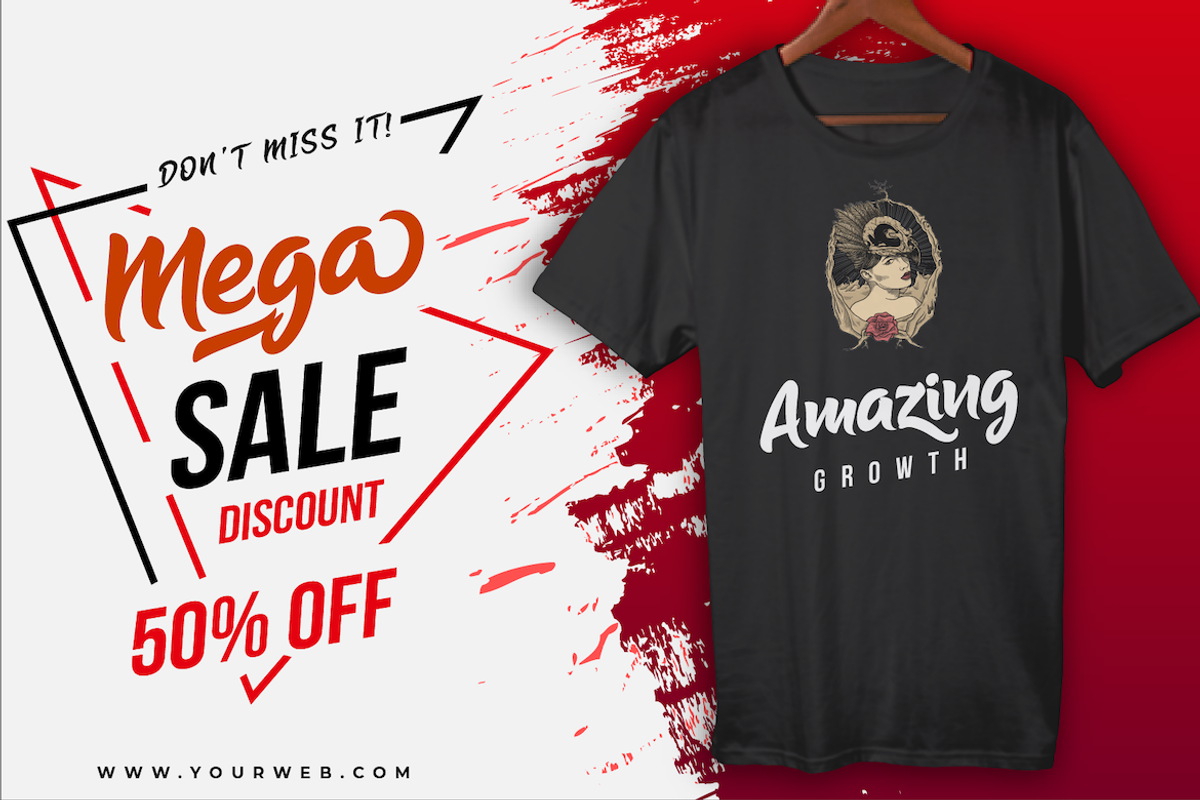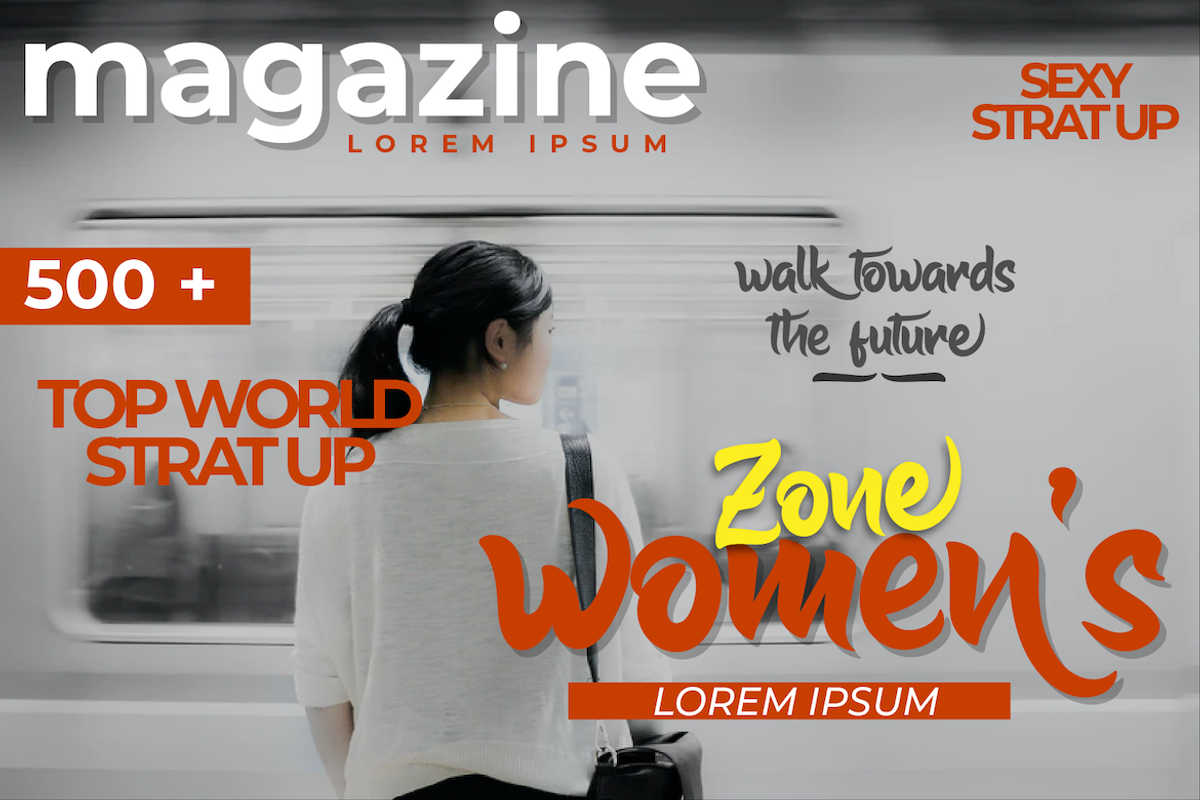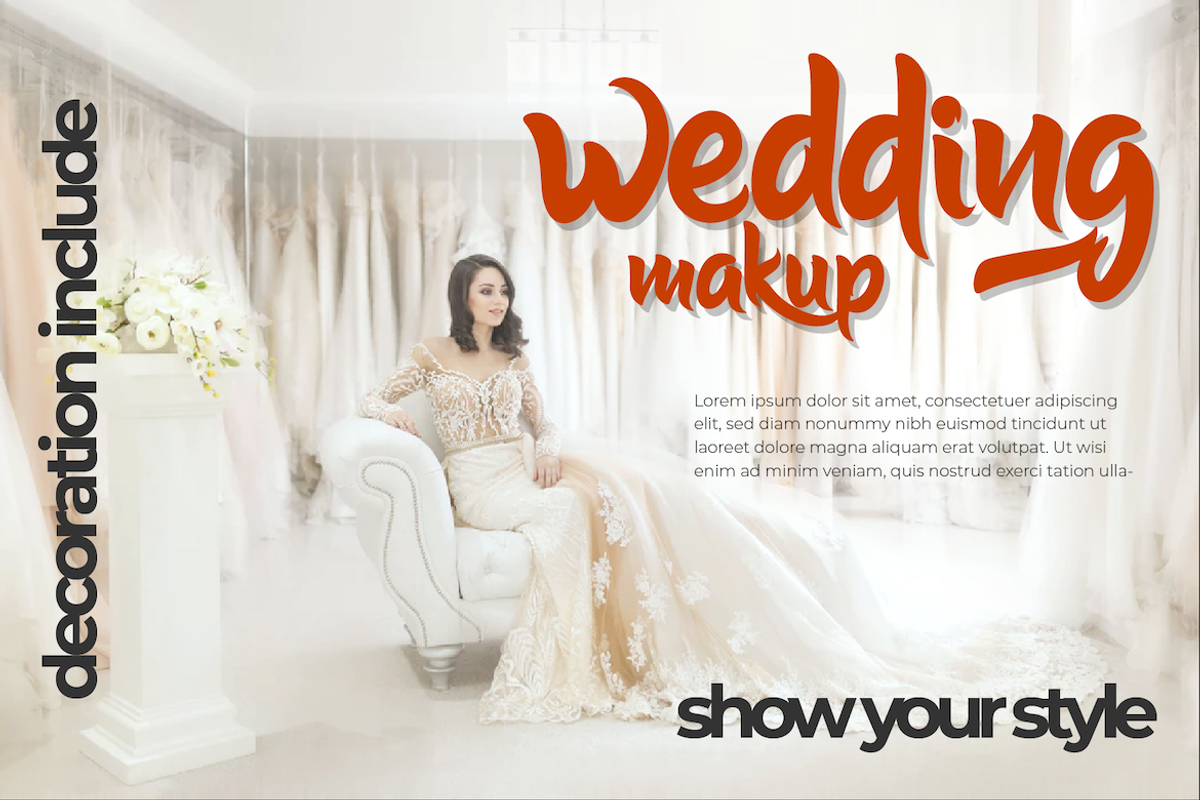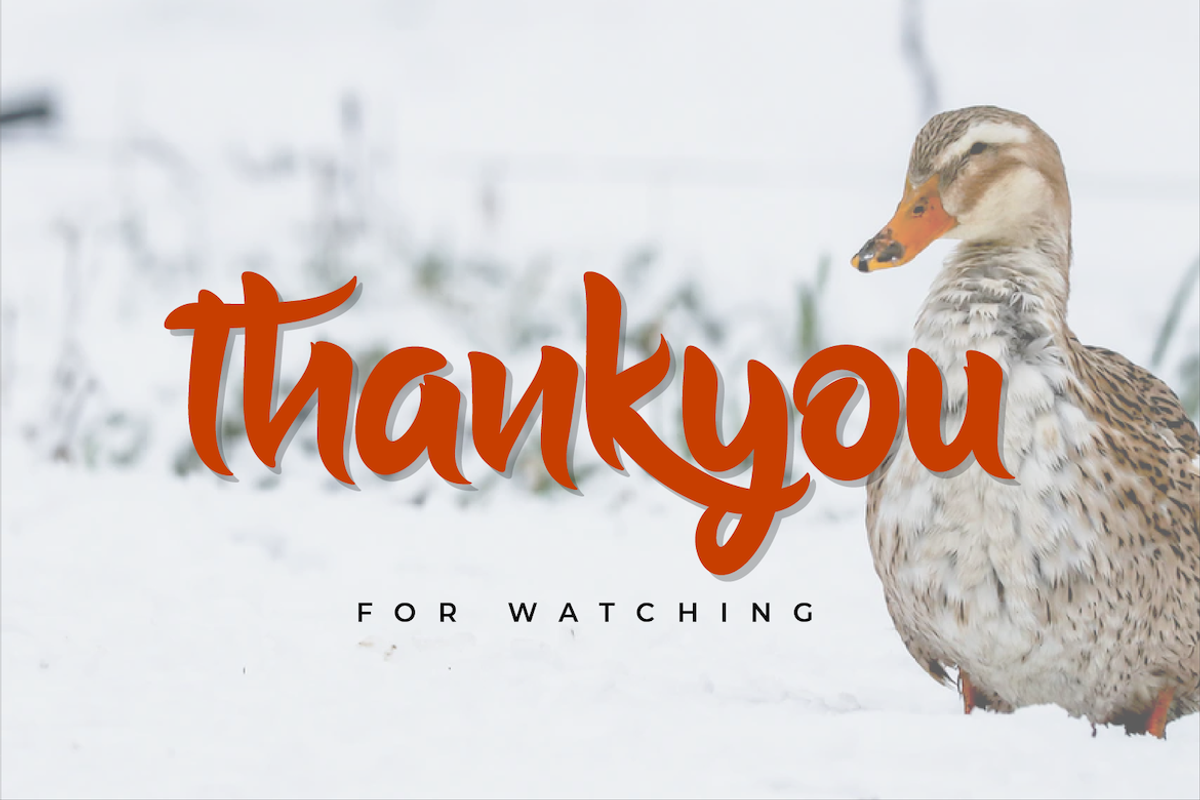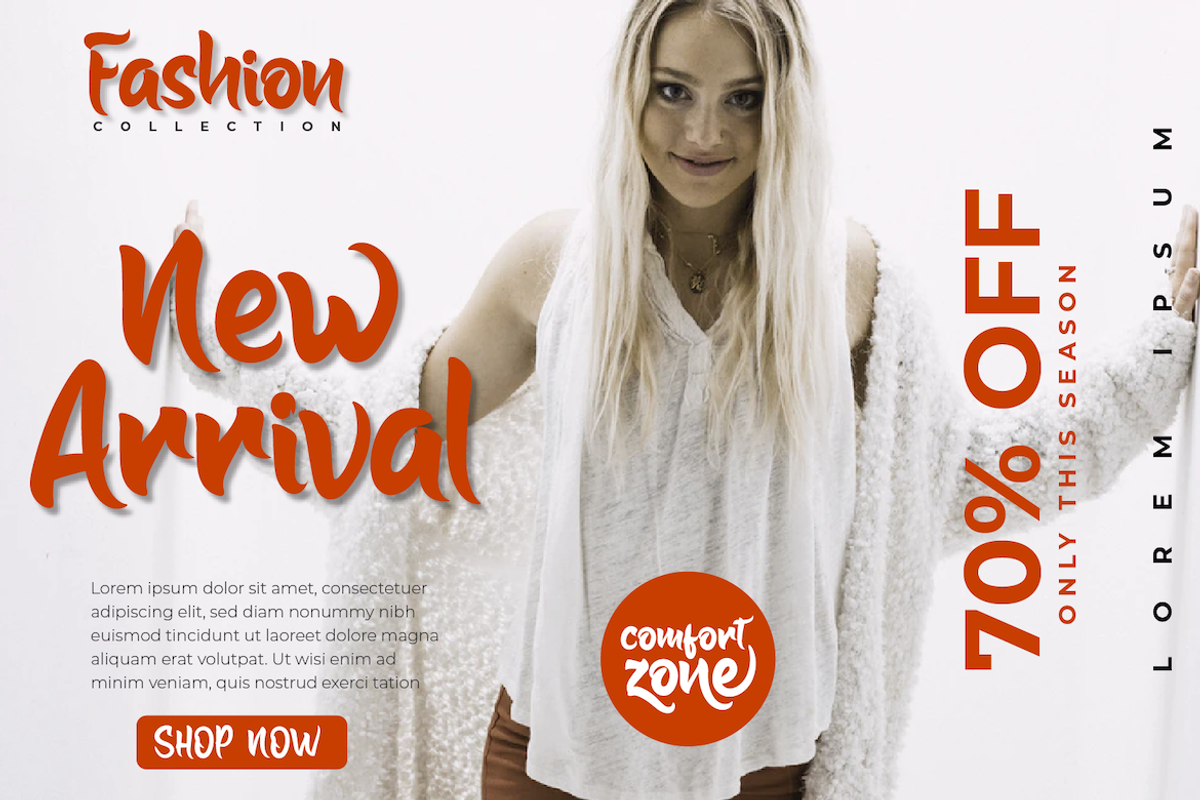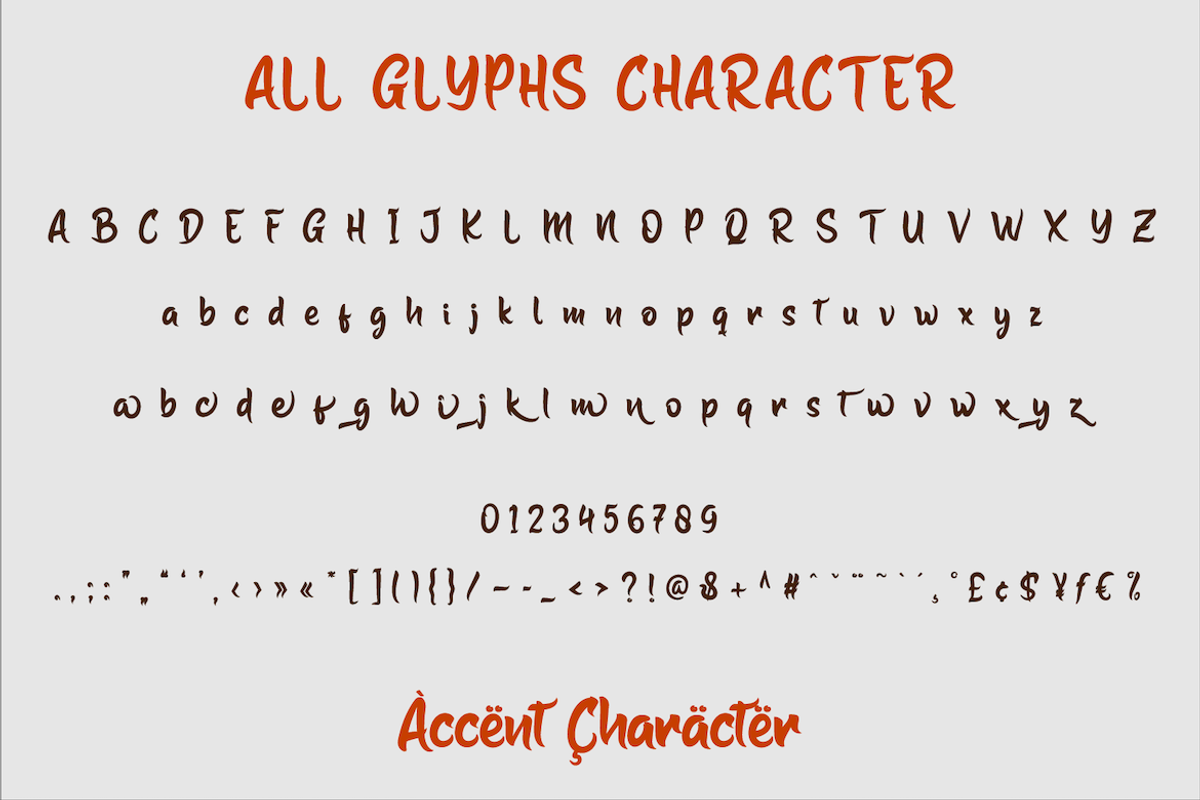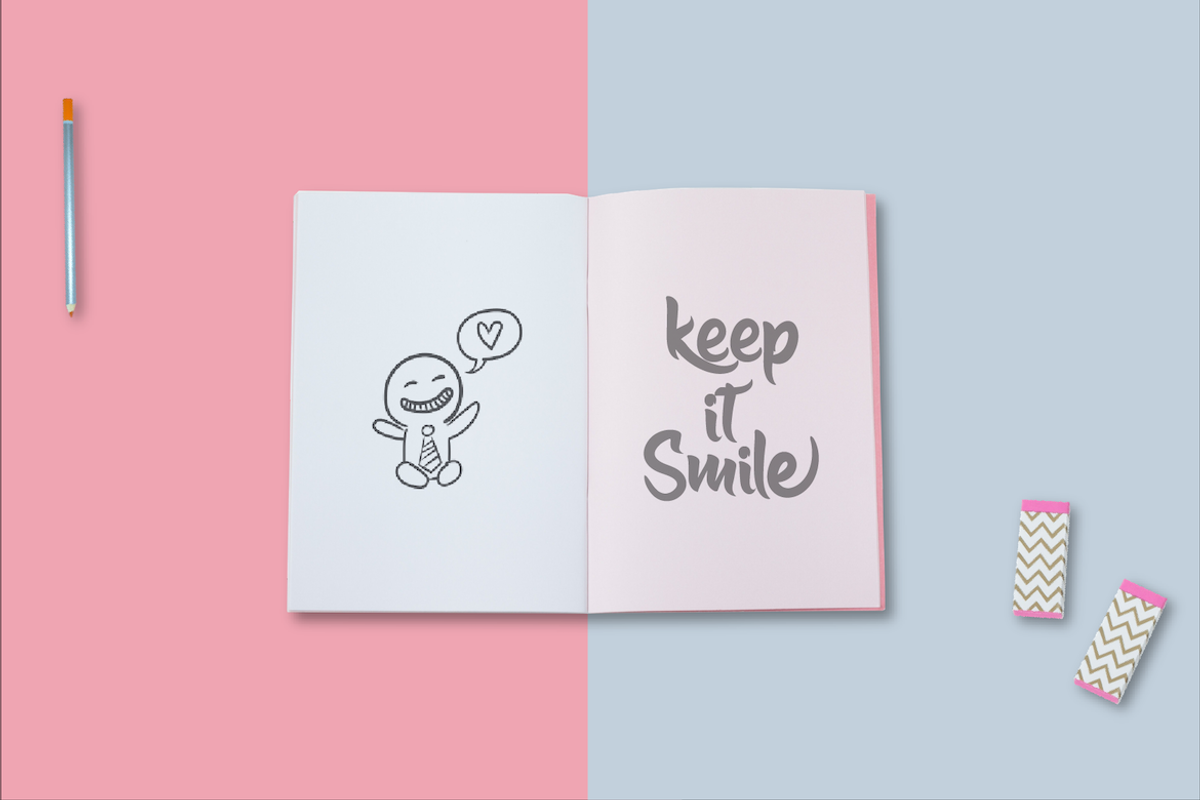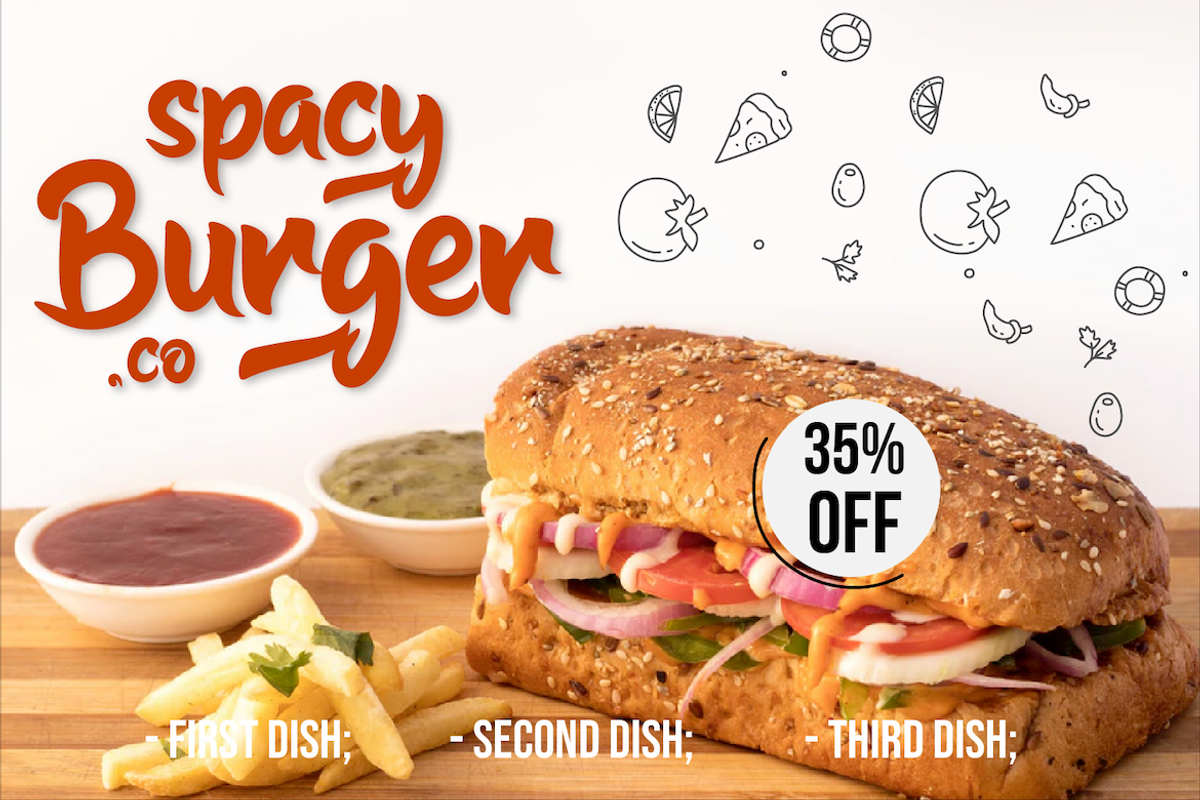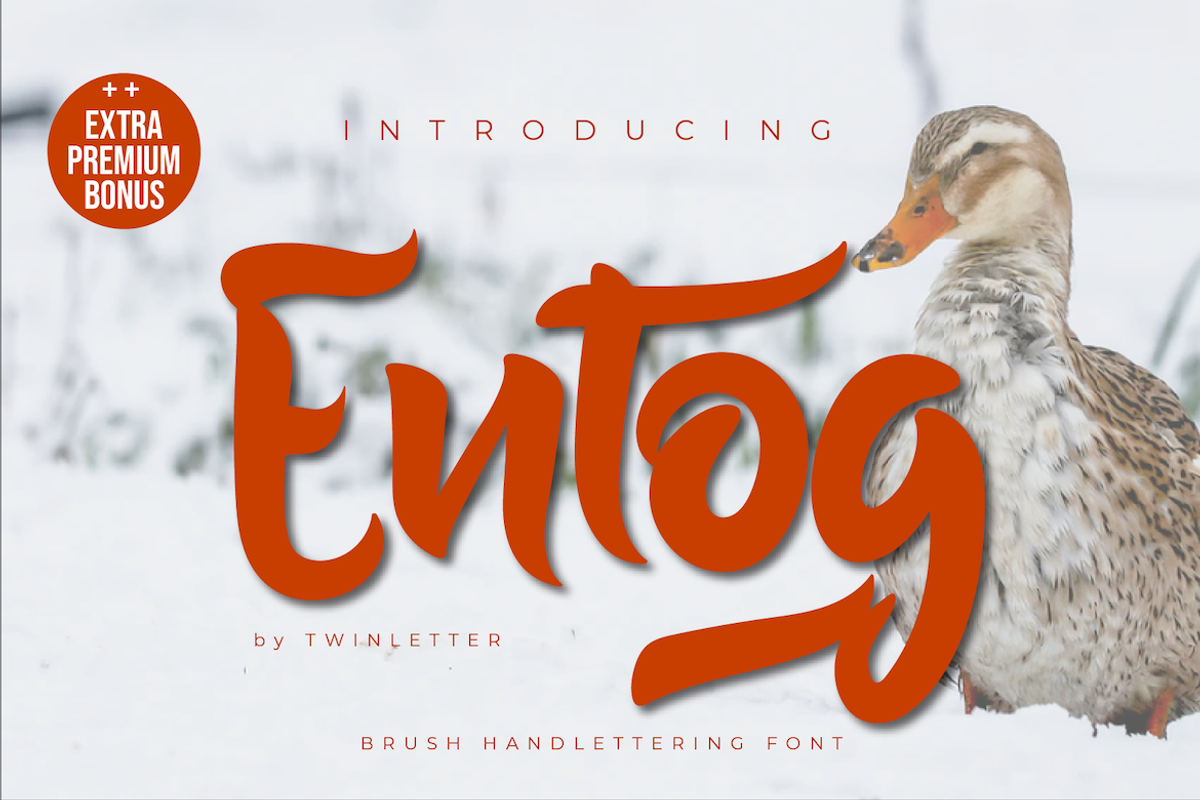
Entog
Introducing our newest Font, Entog
This font offers beautiful abstract typographic harmony for a wide variety of design projects, including natural handwriting in digital form for designs, quote designs, for social media business designs, advertisements, trademarks, promotional banners, posts, posters, signatures, and all. the design requires handwriting or whatever design you want. Start creating awesome designs with this font!
This charming font also offers the beauty of abstract typography harmony for a wide variety of design projects, including digital natural handwriting for designs, quote designs, for social media business designs, advertisements, trademarks, food and beverage promotion banners, text, posters, a signature, and all designs require handwriting or whatever design you want.